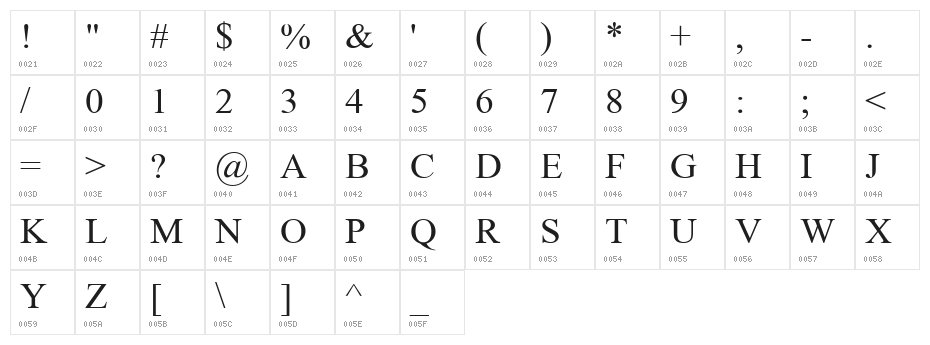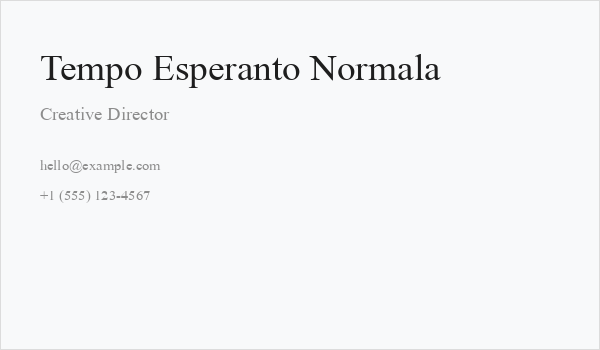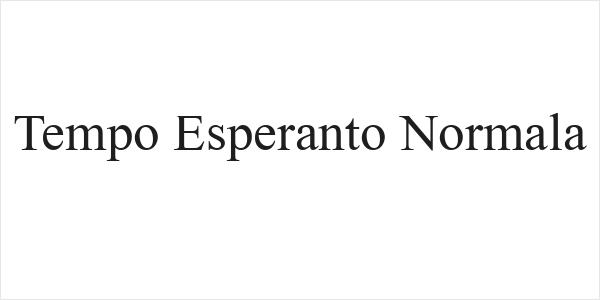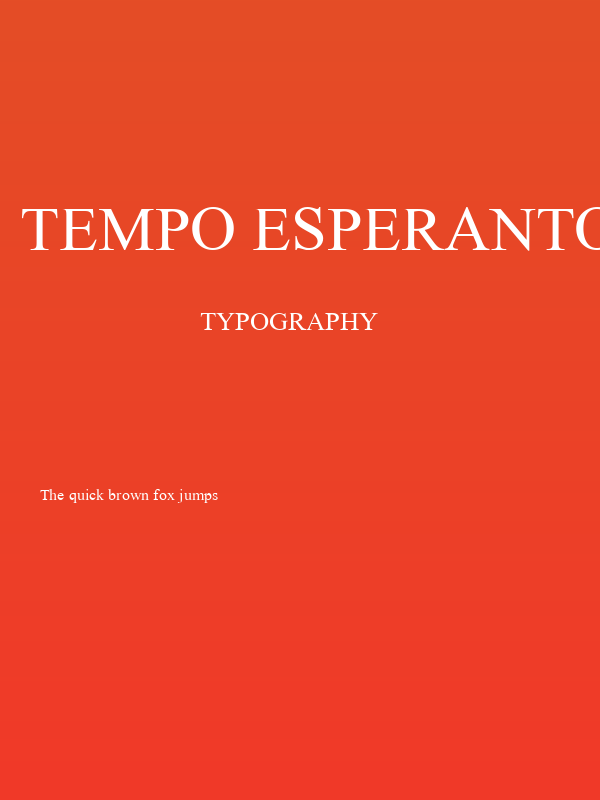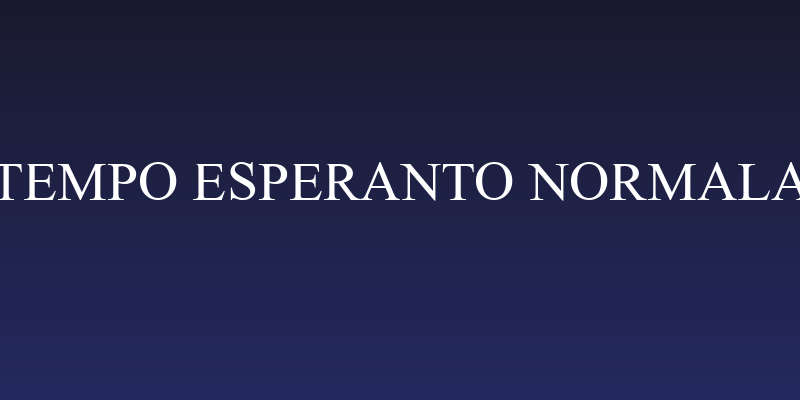
Tempo Esperanto Normala Font
Tempo Esperanto Normala Description
This font features a classic serif style with elegant and well-defined strokes. The uppercase letters are bold and commanding, while the lowercase letters maintain a graceful and readable form. The numerals are clear and distinct, making them suitable for a variety of uses. Special characters are included, providing versatility for different types of text. The overall design is timeless, offering a balance between traditional serif elements and modern readability.
| Proposed Projects | Ideal for editorial design, book covers, formal invitations, and branding materials. |